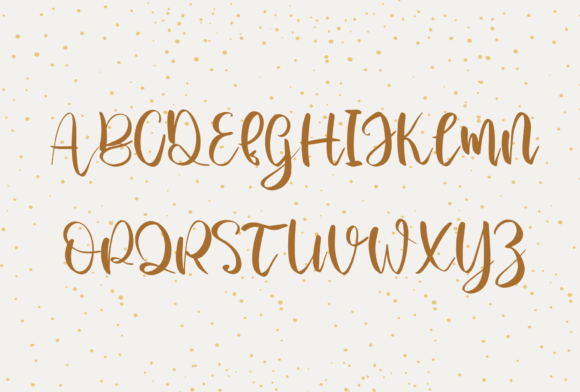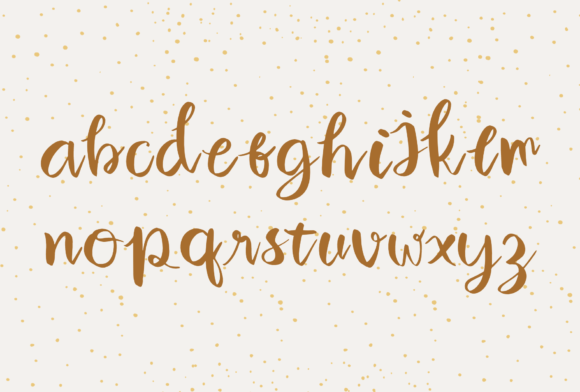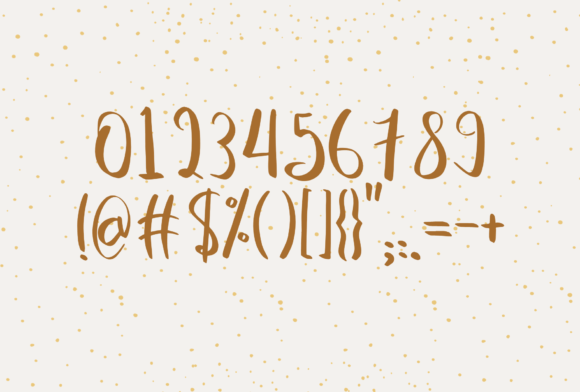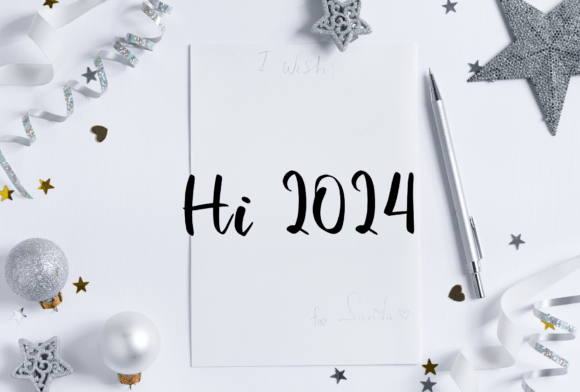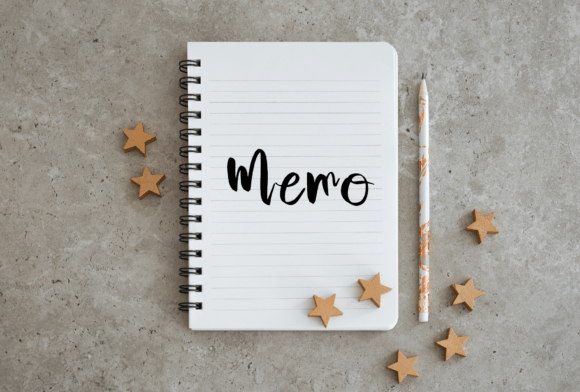
Happy New Year Font: A Fresh Start with a Super Adorable Handwritten Style
As we bid adieu to the old and welcome the new, we’re excited to introduce the “Happy New Year Font” – a super adorable handwritten font that’s perfect for designers, crafters, and educators looking to add a touch of personality to their work. With its sleek, uncomplicated style, this versatile font is ideal for a wide range of applications, from educational materials and presentations to advertising and illustrations.
The Perfect Blend of Style and Simplicity
The Happy New Year Font boasts a unique blend of playfulness and sophistication, making it an excellent choice for projects that require a friendly, approachable tone. Its handwritten style is carefully crafted to convey a sense of warmth and approachability, while its clean lines and simple design ensure that it remains easy to read and understand.
Endless Possibilities for Education and Beyond
One of the standout features of the Happy New Year Font is its versatility. Whether you’re creating educational materials, such as worksheets, activity sheets, or presentation slides, this font is sure to enhance the learning experience. Its clear, legible design makes it perfect for reading and comprehension, while its engaging style will keep your audience interested and motivated.
But the Happy New Year Font isn’t just limited to education. Its wide range of applications also makes it an excellent choice for:
- Advertising: Add a personal touch to your marketing materials, such as brochures, flyers, and social media graphics.
- Illustrations: Bring your artwork to life with a font that’s both playful and elegant.
- Crafting: Use the Happy New Year Font to add a special touch to your DIY projects, such as handmade cards, gift tags, and scrapbooking pages.
Why Choose the Happy New Year Font?
So, what sets the Happy New Year Font apart from other fonts on the market? Here are just a few reasons why designers, crafters, and educators are falling in love with this super adorable handwritten font:
- Unique Style: The Happy New Year Font boasts a distinctive, one-of-a-kind design that’s sure to make your projects stand out.
- Easy to Read: Despite its playful style, this font remains clear and easy to read, making it perfect for body text and headings.
- Versatile: Use the Happy New Year Font for a wide range of applications, from education to advertising and beyond.
- High-Quality: This font is designed to deliver exceptional results, with crisp lines and a professional finish.
Get Creative with the Happy New Year Font
In conclusion, the Happy New Year Font is a game-changer for designers, crafters, and educators looking to add a touch of personality to their work. With its unique blend of style and simplicity, this versatile font is perfect for a wide range of applications, from education to advertising and beyond. So why not give it a try? Download the Happy New Year Font today and discover a world of creative possibilities.